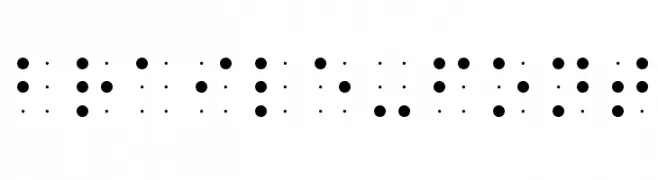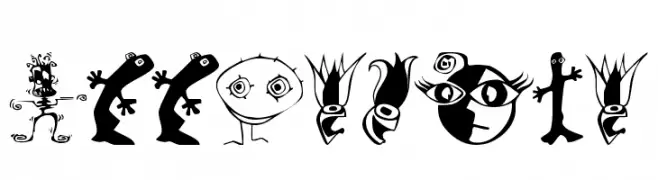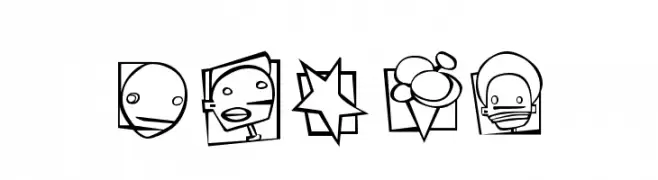
( Fonts by Astigmatic One Eye Typographic Institute - Brian J. Bonislawsky - astigmatic.com )
A tactile Braille font for visually impaired readers.
( Fonts by Greg Meronek - GregoryFonts )
A playful and whimsical set of hand-drawn dingbats with unique illustrations.
( Fonts by www.typadelic.com )
A decorative font composed of illustrated portraits instead of standard letterforms.